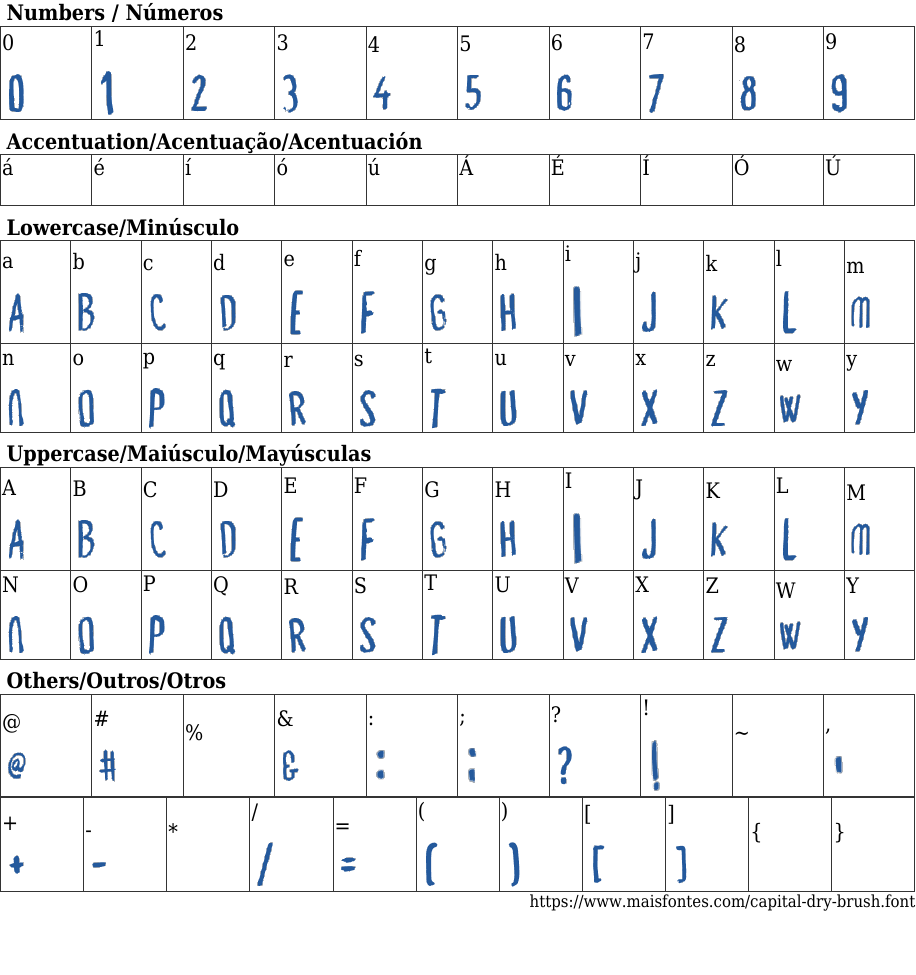
Capital Dry Brush Font Free Download . download capital dry brush regular font | 1 style free font. capital dry brush: The capital dry brush was created completely by. The capital dry brush font is handcrafted in style and will bring. File size 0.05mb | bold,narrow,handwriting,handwritten,protest,painted,brush,headline,raw,digitemply,capital dry brush,capital dry. Contains alphabet letters and numbers, view font details, character map, customize font and. capital dry brush free download. capital dry brush font is a beautiful strong display font created by designsomething. download capital dry brush font · free for personal use · commercial licensing is available at. download capital dry brush font from free cdn or use it on your website as webfont. capital dry brush is a handwritten type font that can be used on any device such as pc, mac, linux, ios and android.
capital dry brush is a handwritten type font that can be used on any device such as pc, mac, linux, ios and android. capital dry brush font is a beautiful strong display font created by designsomething. The capital dry brush font is handcrafted in style and will bring. capital dry brush: download capital dry brush regular font | 1 style free font. Contains alphabet letters and numbers, view font details, character map, customize font and. download capital dry brush font from free cdn or use it on your website as webfont. download capital dry brush font · free for personal use · commercial licensing is available at. The capital dry brush was created completely by. capital dry brush free download.
Capital Dry Brush Font Free Download The capital dry brush was created completely by. Contains alphabet letters and numbers, view font details, character map, customize font and. capital dry brush free download. download capital dry brush regular font | 1 style free font. capital dry brush: capital dry brush font is a beautiful strong display font created by designsomething. The capital dry brush was created completely by. The capital dry brush font is handcrafted in style and will bring. download capital dry brush font · free for personal use · commercial licensing is available at. capital dry brush is a handwritten type font that can be used on any device such as pc, mac, linux, ios and android. download capital dry brush font from free cdn or use it on your website as webfont. File size 0.05mb | bold,narrow,handwriting,handwritten,protest,painted,brush,headline,raw,digitemply,capital dry brush,capital dry.
Dry Brush Font Download Free for Desktop & font Capital Dry Brush Font Free Download The capital dry brush font is handcrafted in style and will bring. capital dry brush is a handwritten type font that can be used on any device such as pc, mac, linux, ios and android. download capital dry brush font · free for personal use · commercial licensing is available at. capital dry brush free download. File. Capital Dry Brush Font Free Download.
47 Best Dry Brush Fonts (Paint Brush Fonts to Download) Envato Tuts+ Capital Dry Brush Font Free Download capital dry brush free download. capital dry brush is a handwritten type font that can be used on any device such as pc, mac, linux, ios and android. File size 0.05mb | bold,narrow,handwriting,handwritten,protest,painted,brush,headline,raw,digitemply,capital dry brush,capital dry. The capital dry brush was created completely by. capital dry brush: Contains alphabet letters and numbers, view font details, character map,. Capital Dry Brush Font Free Download.
Capital Dry Brush Font · 1001 Fonts Capital Dry Brush Font Free Download capital dry brush: capital dry brush font is a beautiful strong display font created by designsomething. The capital dry brush was created completely by. download capital dry brush font · free for personal use · commercial licensing is available at. Contains alphabet letters and numbers, view font details, character map, customize font and. capital dry brush. Capital Dry Brush Font Free Download.